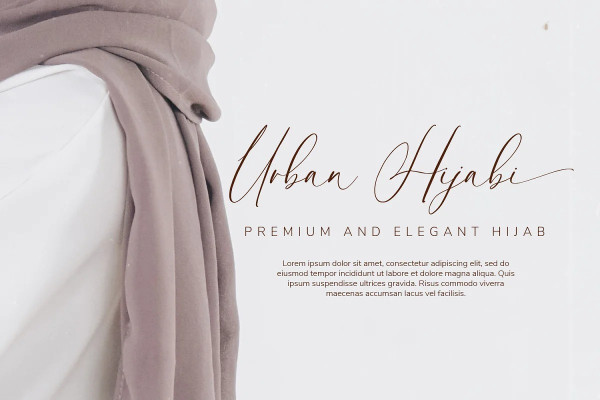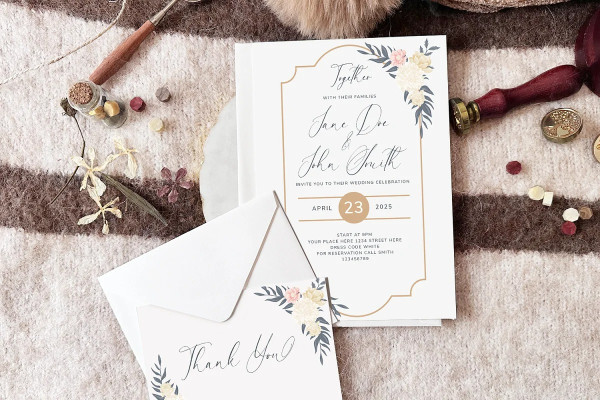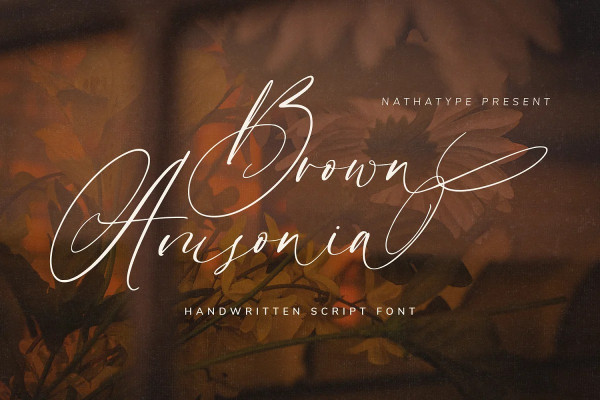
Brown Amsonia Font
Brown Amsonia Font is a lovely script font of which letters are in handwriting to express unique, personal nuances in your designs. Such a handwriting font is available in high contrasts having noticeable differences between the bright and the dark letter parts to produce clear, firm displays making the designs look professional and modern.
Besides, Brown Amsonia can express personal, artistic displays to create more interesting, noticeable designs. The letters are interconnected and their details show sharp, curvy scratches on the edges. Due to the complex font style details, this font is better to apply for big text sizes. In addition, you may enjoy the available features here.